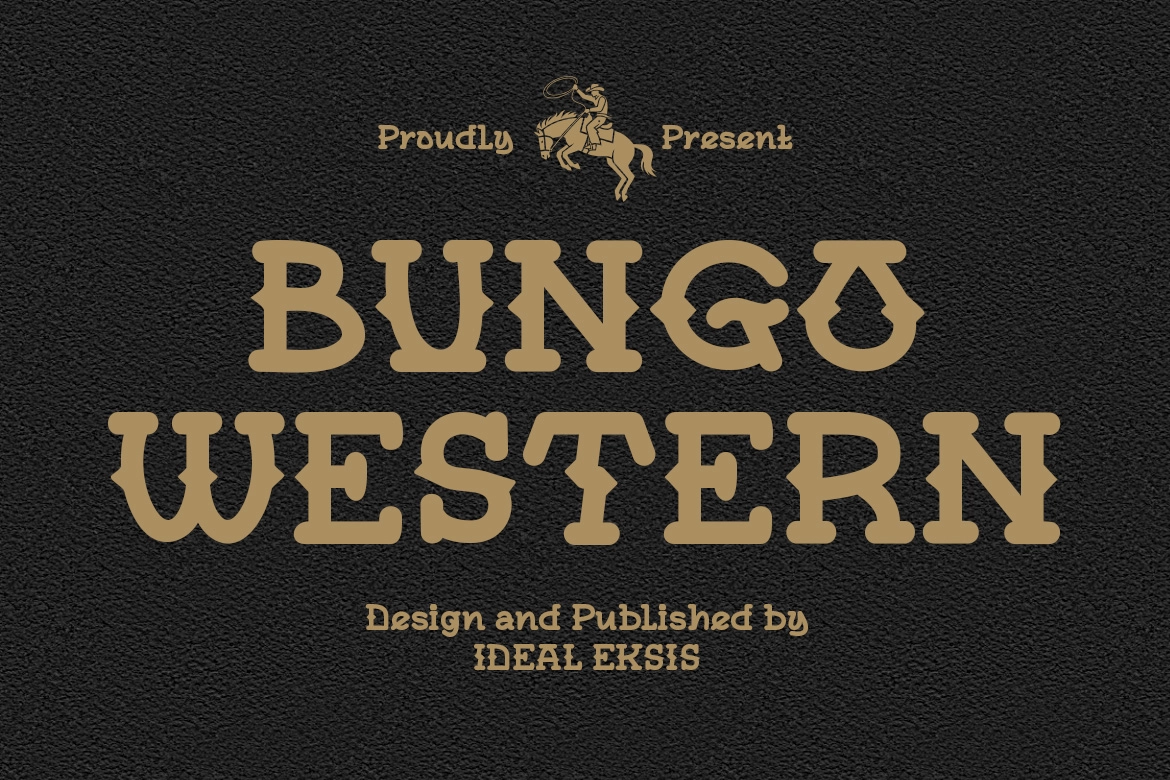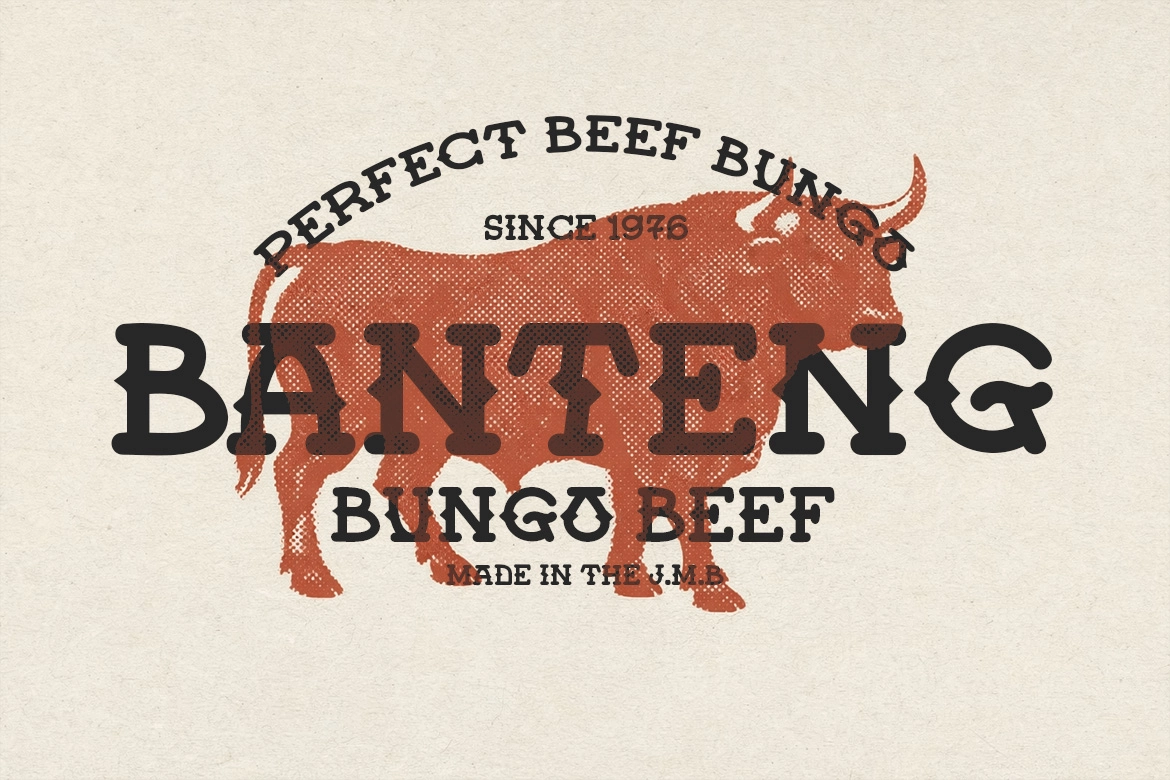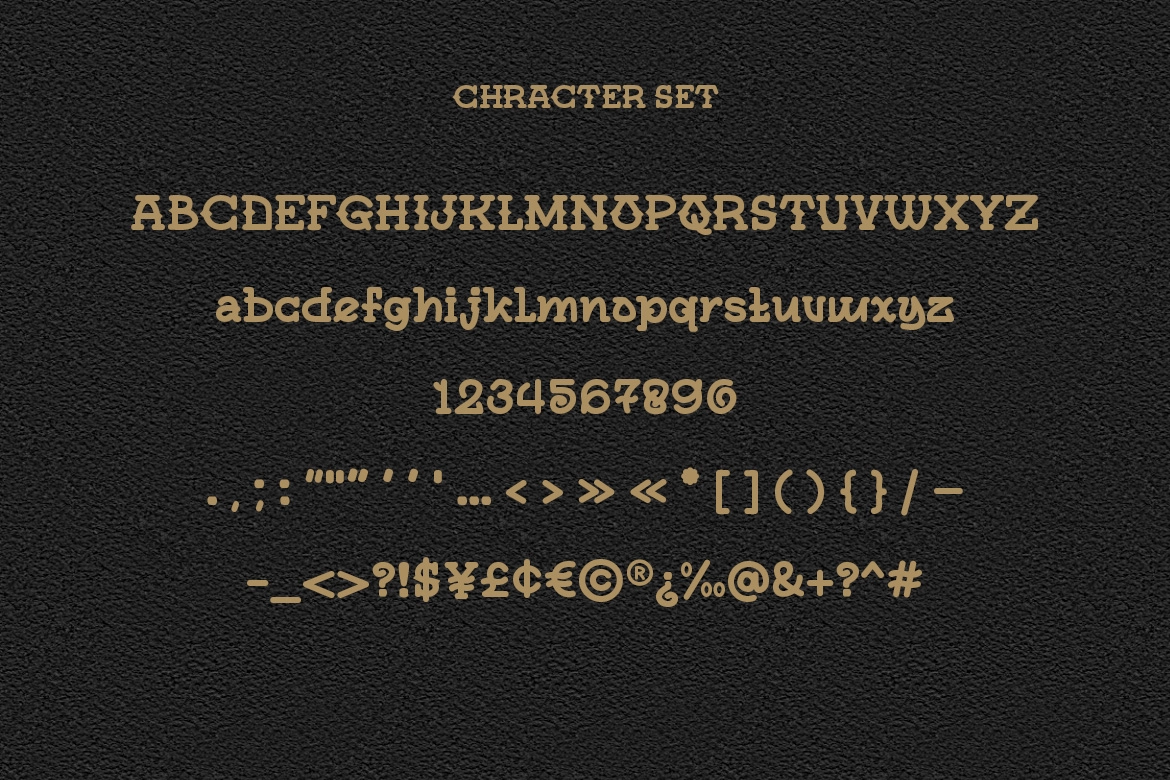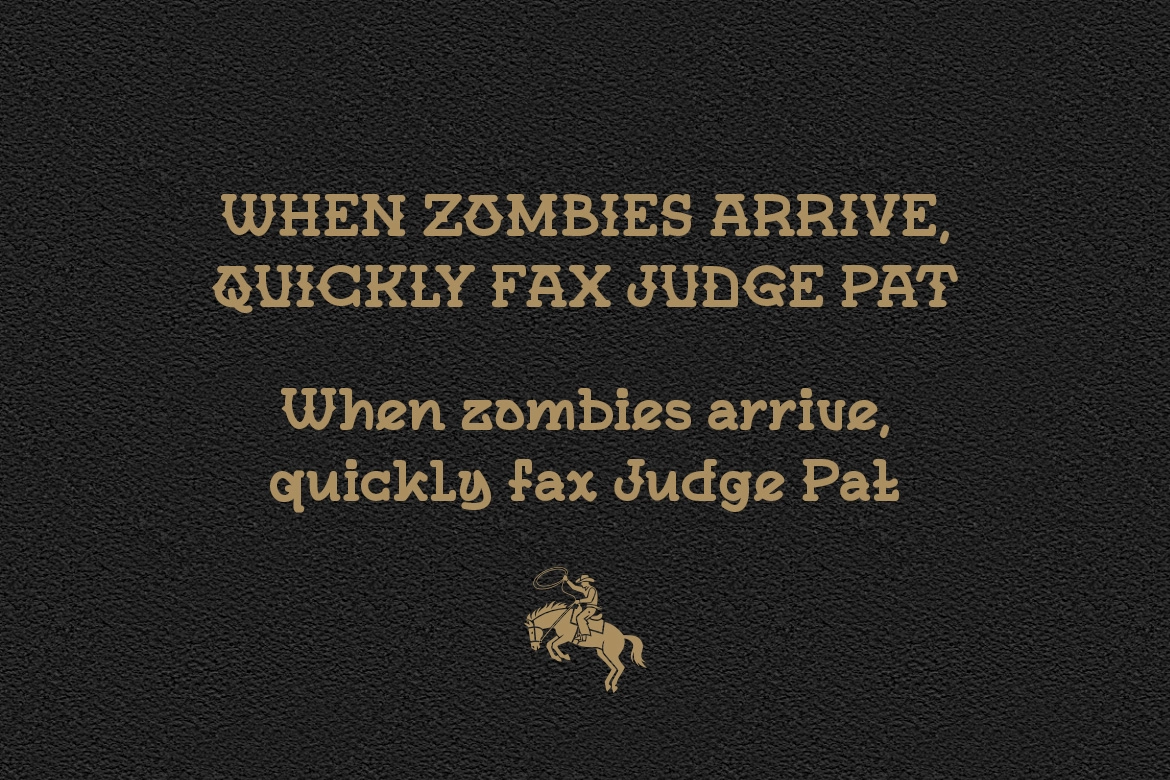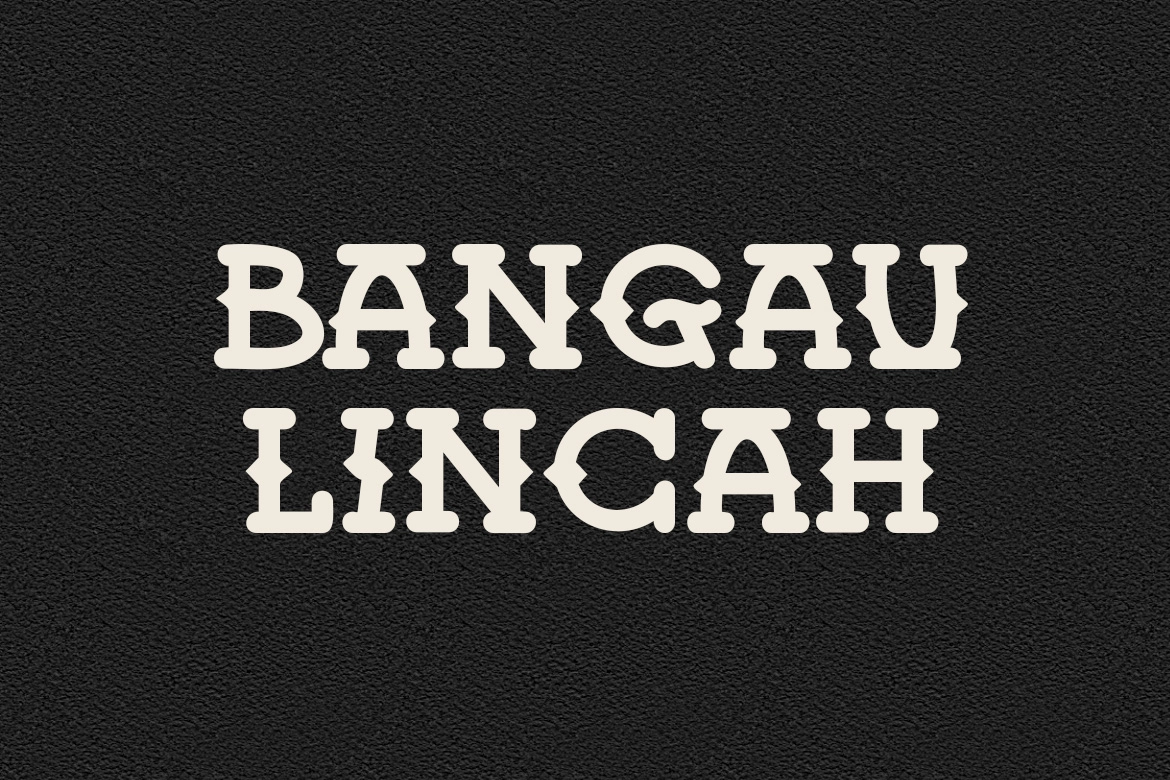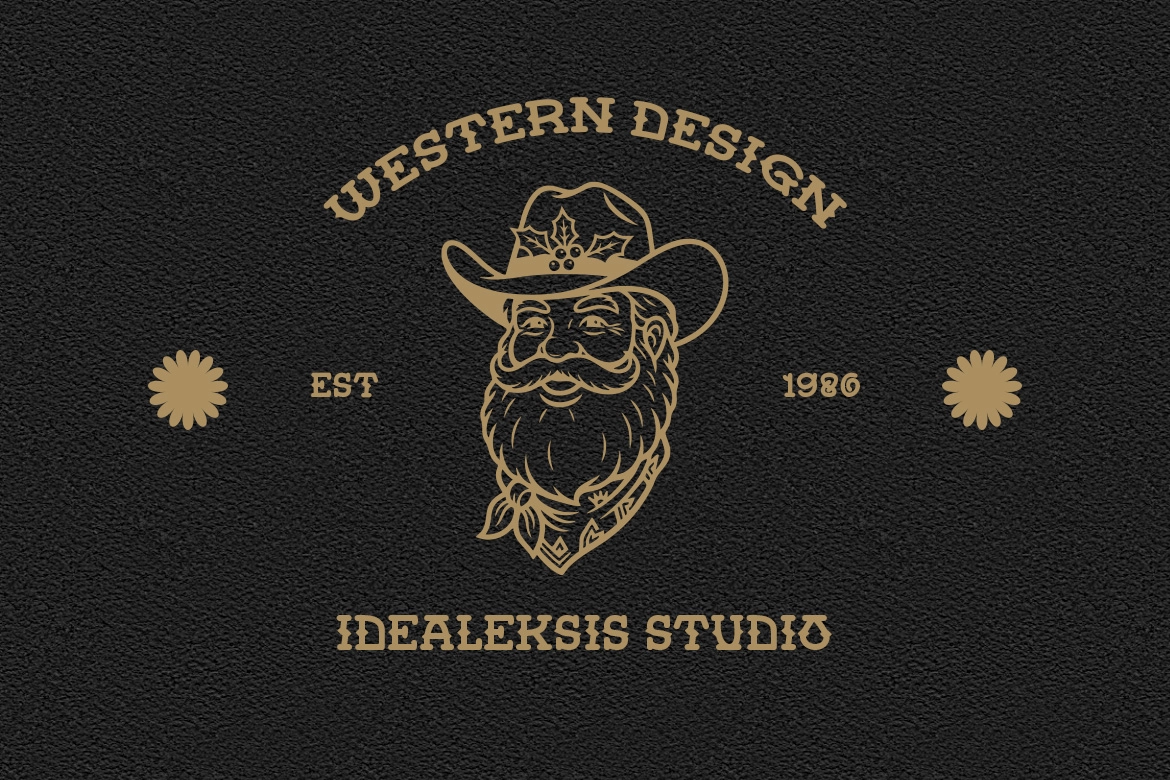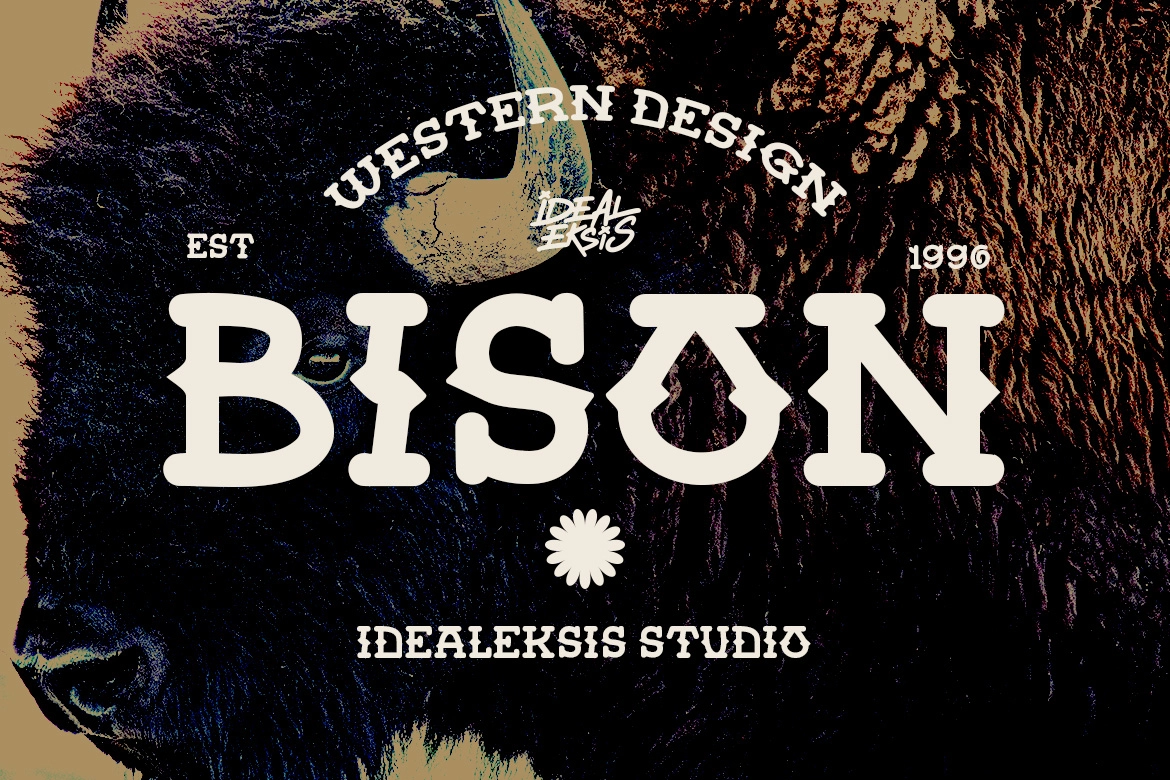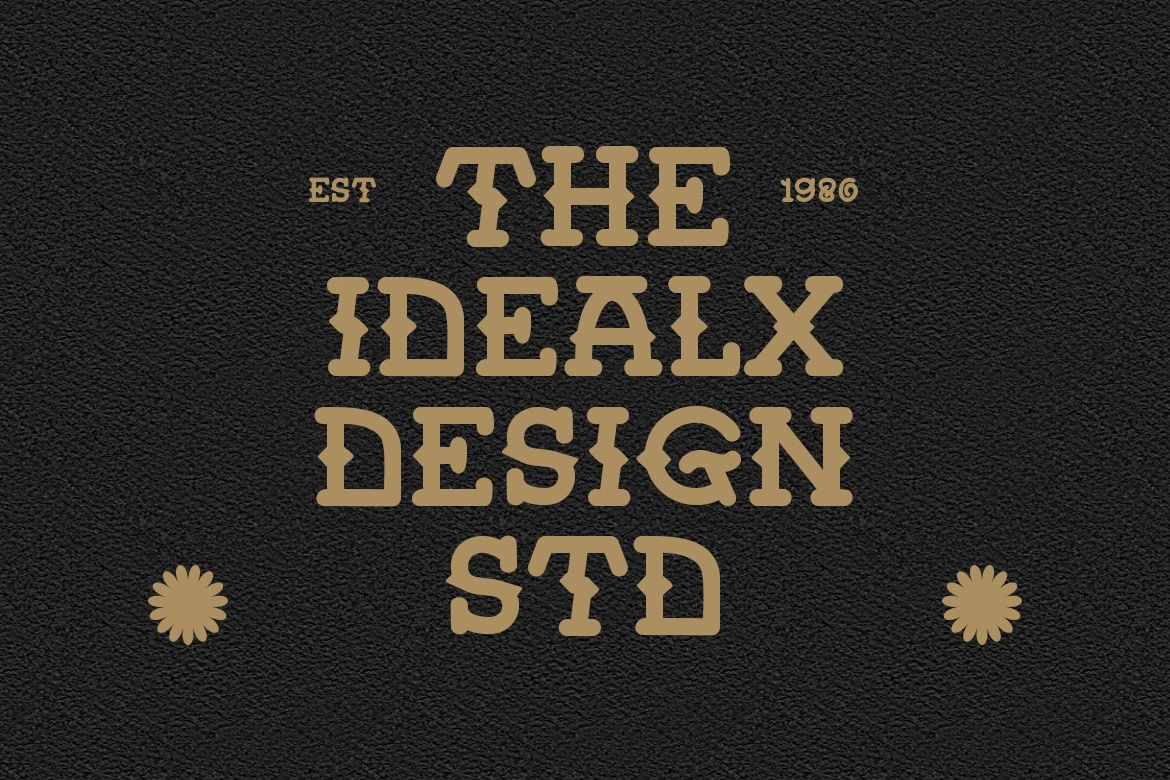
Bungo Western - Western Display Font
Bungo Western - Western Display Font is a robust slab serif inspired by classic frontier typography and 19th-century wood type. Its heavy strokes, blocky serifs, and distinctive mid-stem spurs create a strong, rugged character that instantly evokes a vintage Western aesthetic. The bold construction ensures excellent readability while delivering a striking, authentic presence.
Designed for impactful visuals, Bungo Western - Western Display Font is perfect for branding, packaging, posters, signage, and logo design that call for a rustic, heritage-driven look. Whether used for bold headlines or supporting text, it adds a timeless, Americana-inspired feel that stands out in both modern and retro compositions.
• Uppercase and lowercase letters
• Numerals and Punctuation